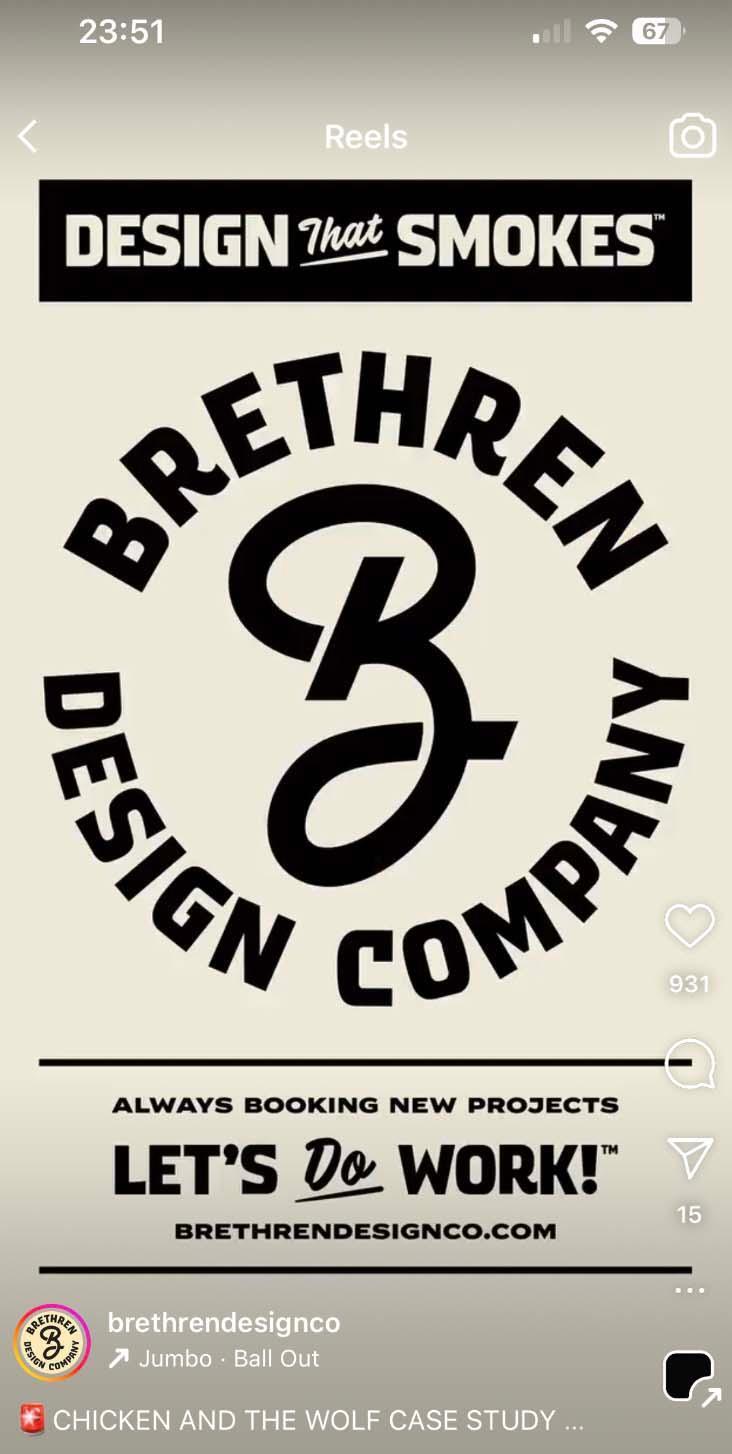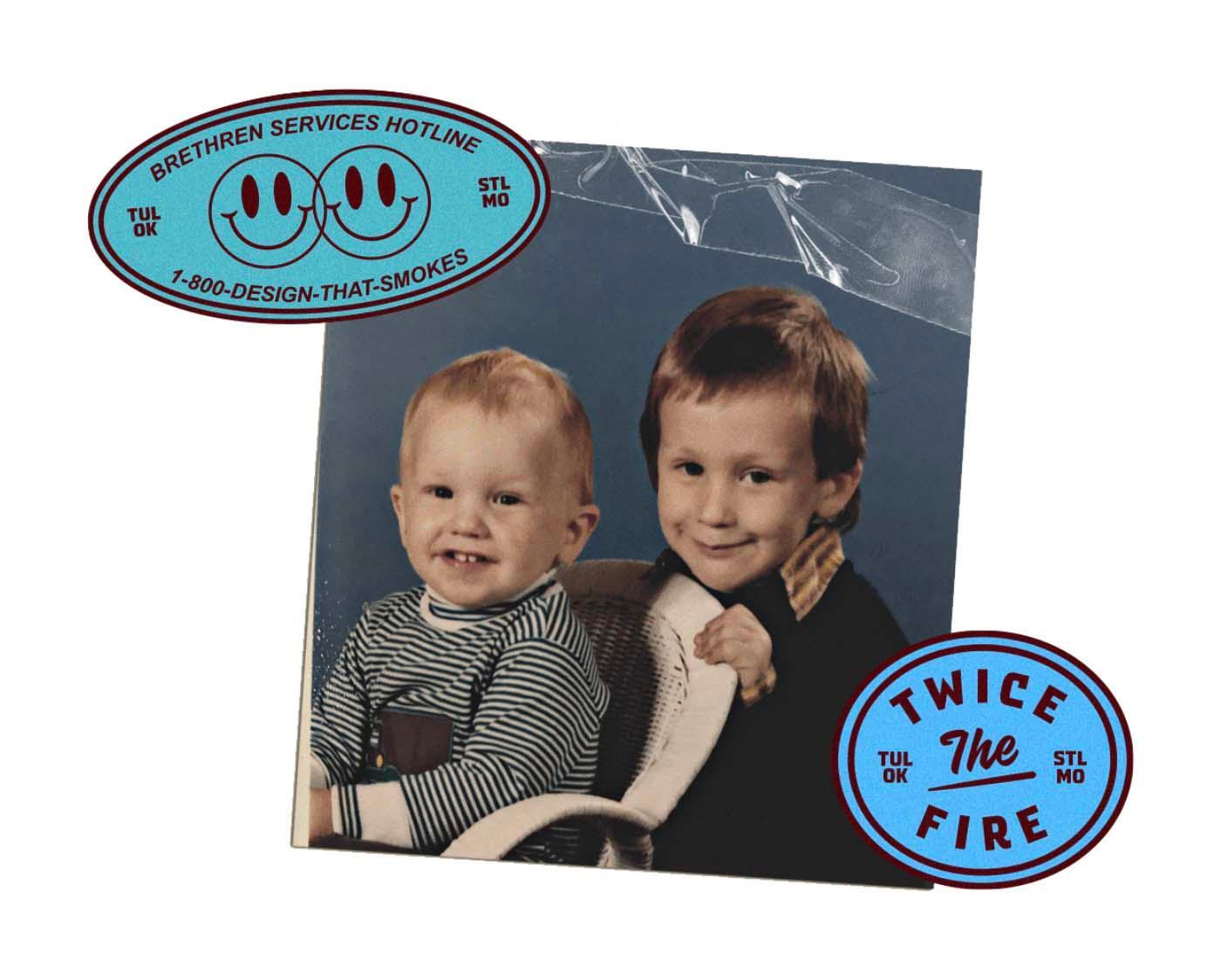
Could anyone help with these lush fonts? (Brethren Design)
Love the sans serif display font, but really love the script font. Does anyone know what they could be at all?
Website has them too - https://www.brethrendesignco.com/